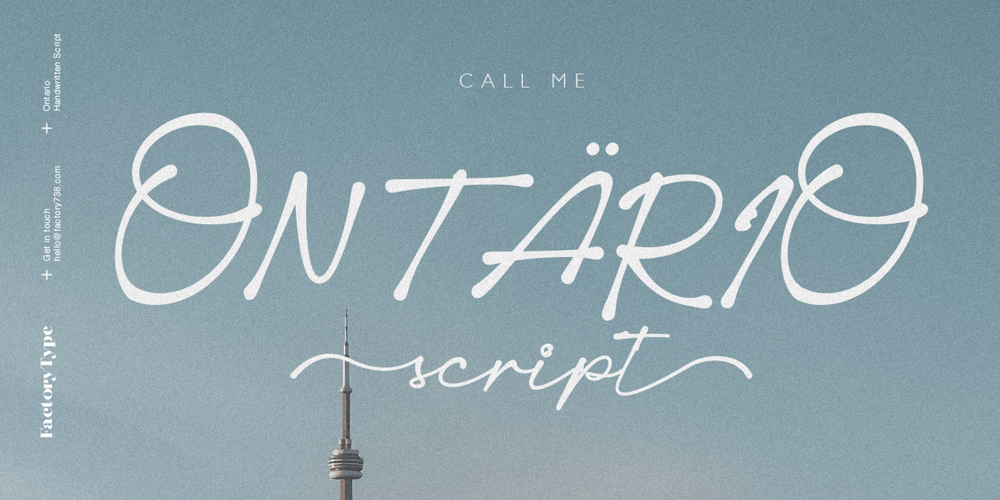
Ontario Script Font Family was designed by Wahyu Rahmawan and published by Factory738. Ontario Script contains 3 styles and family package options. Call me Ontario – A fashionable handwritten font with a personal touch. Ontario script is ideal for a variety of projects such as branding, logo design, wedding designs, social media posts, advertisements, product packaging, product designs, label, photography, watermark, invitation, stationery, and any other project that requires a handwritten touch. Ontario Script (Regular, Caps, and Tails) Basic Latin A-Z and a-z Numerals & Punctuation Stylistic Alternates Multilingual Support for ä ö ü Ä Ö Ü … Free updates and feature additions Thanks for looking, and I hope you enjoy it.